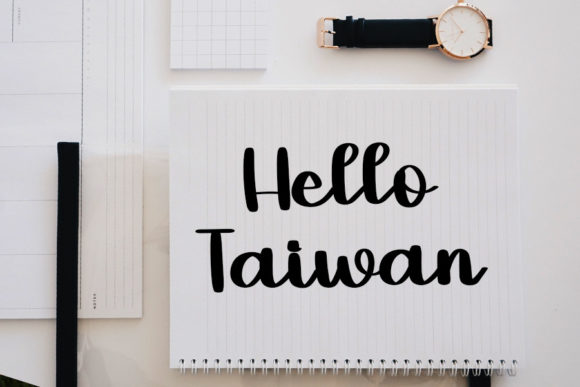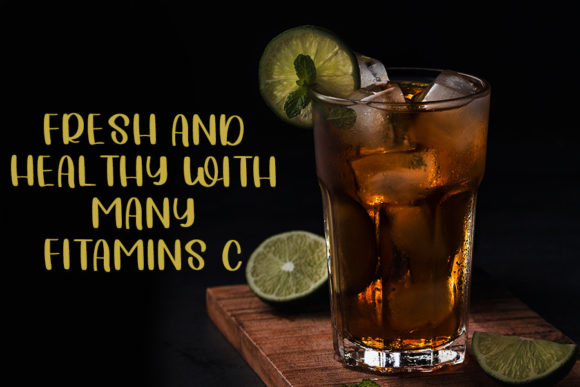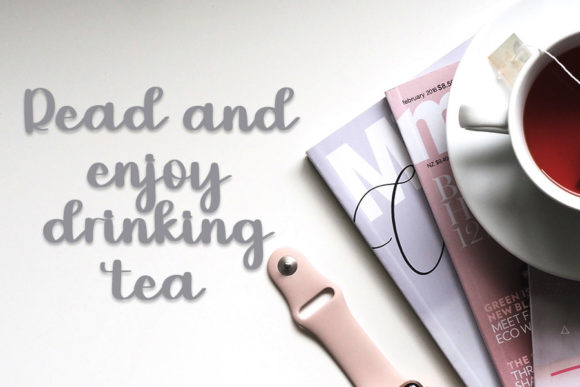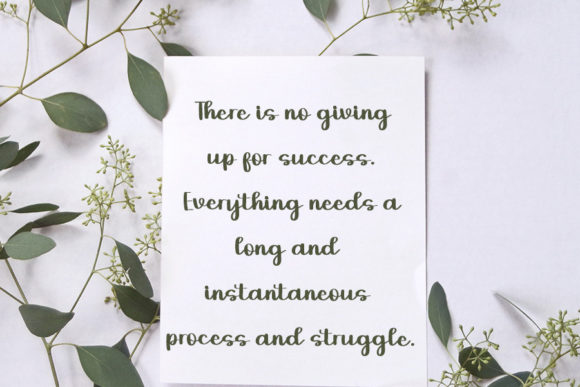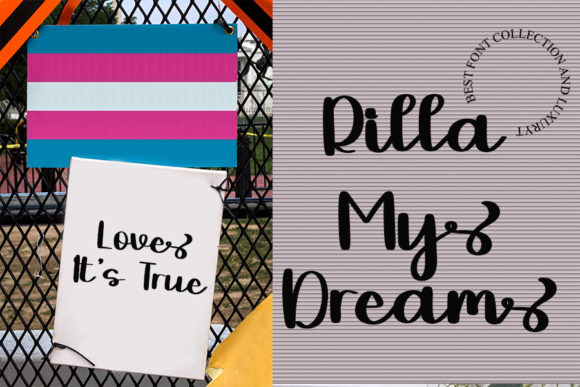
Discover the Delicate Elegance of Beauty Flower Font
Have you ever found yourself lost in a world of creativity, with ideas flowing like water and inspiration striking at every turn? That’s exactly what happened to me when I stumbled upon the Beauty Flower Font. Its delicate and elegant handwritten style captured my heart, and I knew I had to share it with the world.
Beauty Flower Font is a masterpiece of typographic design, with each letter carefully crafted to create a sense of balance and harmony. Its PUA encoding makes it easy to access all the glyphs and swashes, allowing designers to unleash their full creative potential. Whether you’re a seasoned pro or just starting out, this font is a valuable addition to any designer’s toolkit.
With its unique blend of elegance and whimsy, the Beauty Flower Font is perfect for designers looking to add a touch of sophistication to their work. Whether you’re creating a wedding invitation, a logo, or a piece of fine art, this font is sure to make your design stand out from the crowd.
Beauty Flower Font Key Features
- Unique Characteristics: The font features delicate, hand-drawn illustrations of flowers and leaves, adding a touch of elegance and sophistication to any design project.
- Style Variations: The Beauty Flower Font includes multiple style variations, including Regular, Bold, Italic, and Bold Italic, allowing designers to add depth and visual interest to their work.
Beauty Flower Font Review
As a designer, I’ve had the chance to work with the Beauty Flower Font and here’s my honest review.
- Cursive and elegant feel: The font has a beautiful, flowing style that’s perfect for adding a touch of sophistication to any design project.
- High-quality glyphs: The font includes a wide range of characters, including accents and symbols, which ensures that it’s versatile and easy to use.
- Beautiful script-like feel: The font’s script-like design makes it perfect for creating invitations, greeting cards, and other special occasion designs.
- Not ideal for body text: Due to its cursive design, the font can be difficult to read in large blocks of text, making it better suited for headings and titles.
- Limited font weights: The font only comes in a few weights, which may limit its versatility in certain design projects.
Overall, the Beauty Flower Font is a beautiful and elegant addition to any designer’s toolkit. While it may have some limitations, its unique design and high-quality glyphs make it a great choice for certain projects. With a little creativity and experimentation, I’m confident that designers can make the most of this lovely font.
To get the most out of the Beauty Flower font, use it for:
2. Floral-themed designs and illustrations.
3. Branding and logos for flower-related businesses.
The Beauty Flower font is commonly used for:
1. Wedding planning and design.
2. Floral-inspired art and graphics.
3. Branding and marketing materials for flower-related businesses.
Alternatives to “Beauty Flower Font” for Designers
Great Vibes is a modern calligraphy font that features elegant, flowing lines and subtle flourishes. It’s ideal for use in branding, invitations, and other design projects where a touch of sophistication is desired. Compared to Beauty Flower Font, Great Vibes is more refined and less ornate, making it a great choice for designers who want to add a sense of elegance without overwhelming the design.
Carolyna Pro is a luxurious script font that features intricate details and ornate flourishes. It’s perfect for use in high-end branding, advertising, and editorial design projects where a sense of luxury and sophistication is required. Compared to Beauty Flower Font, Carolyna Pro is more dramatic and elaborate, making it a great choice for designers who want to make a bold statement.